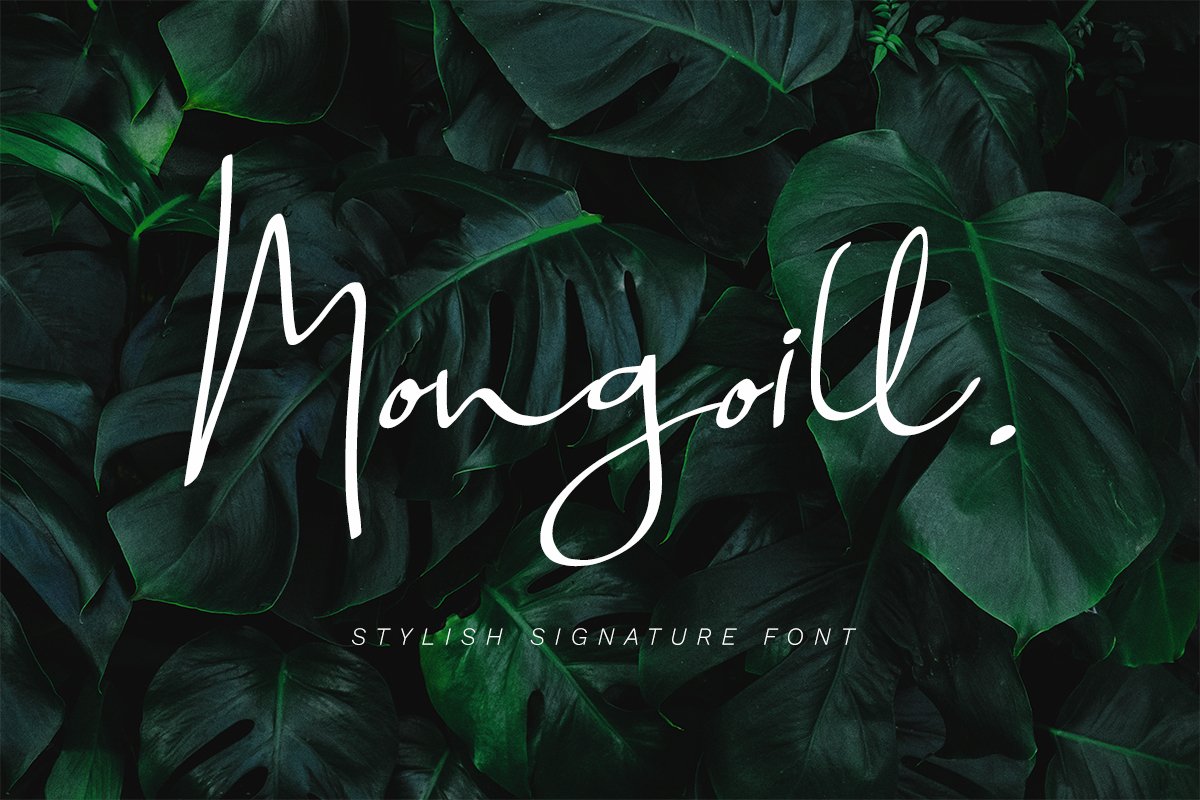
Mongoill - Stylish Signature Font
Mongoill
"Mongoil" is perfectly suited to signature, stationery, logo, typography quotes, magazine or book cover, website header, clothing, branding, packaging design and more. A handwritten script font containing upper and lowercase characters, numerals and a large range of punctuation.